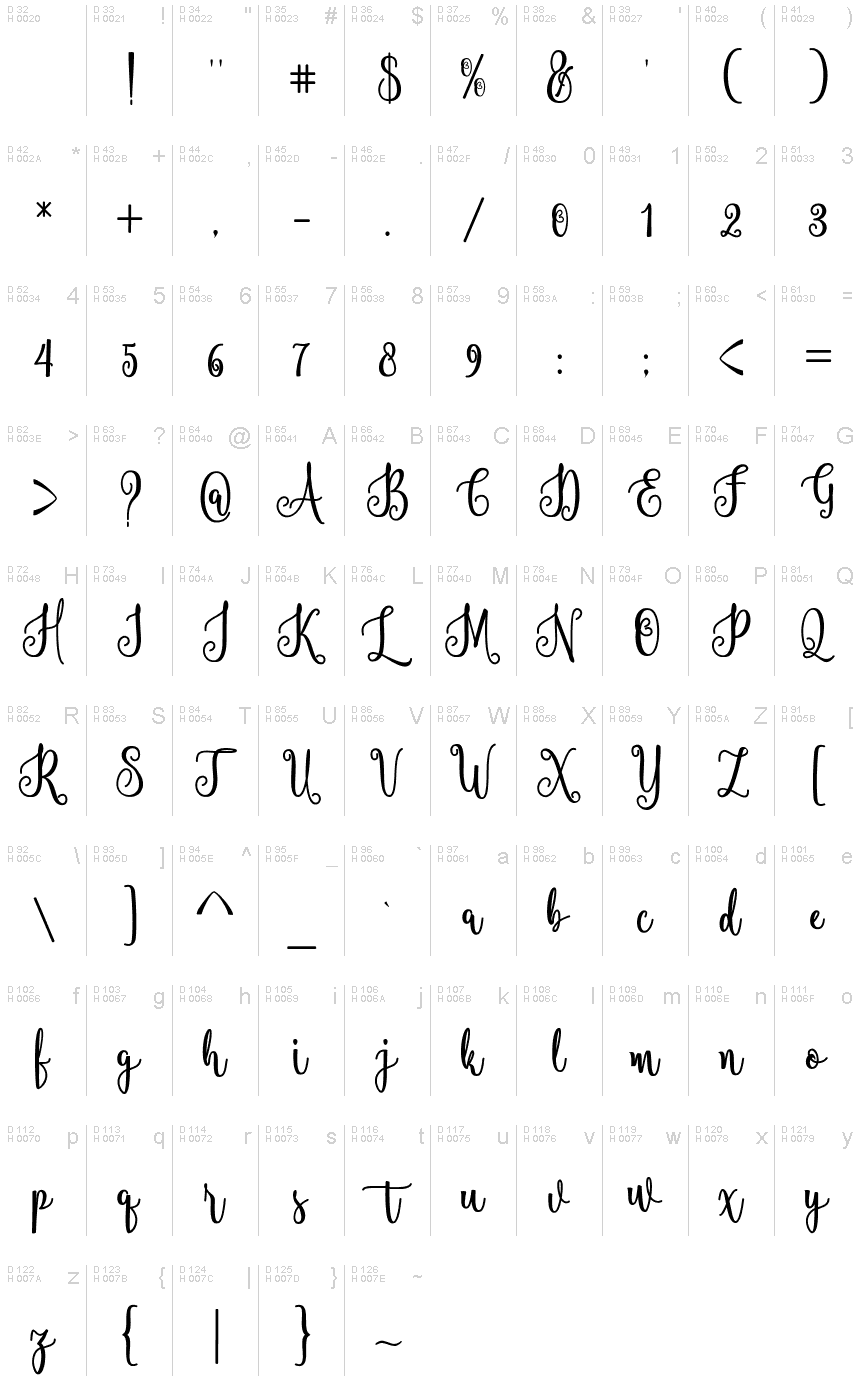
Hammerte
Hammerte, the latest calligraphy font by Pollem Studio, is a stunning addition to any design project. With its elegant and flowing strokes, this semi-light typeface is perfect for wedding invitations, greeting cards, and other formal events. Its thin yet legible letters make it ideal for headlines and body text alike. Use Hammerte to add a touch of sophistication to your branding materials or elevate your digital designs with its timeless appeal. Whether you're creating a website or designing packaging for your product, Hammerte's delicate curves will surely leave a lasting impression on anyone who lays their eyes on it.